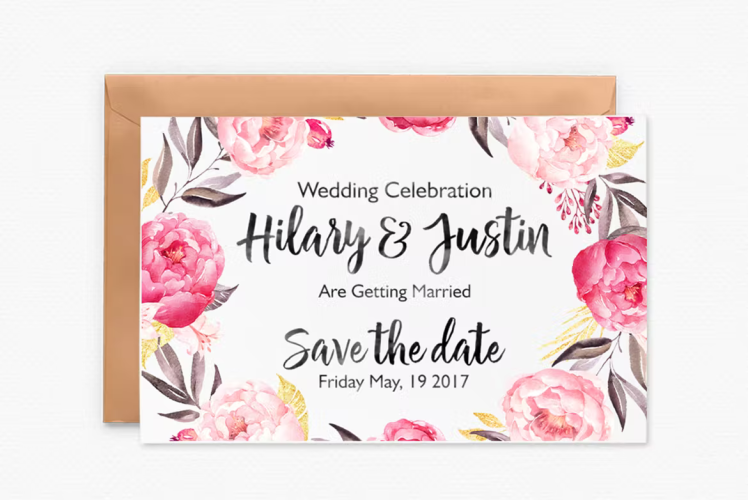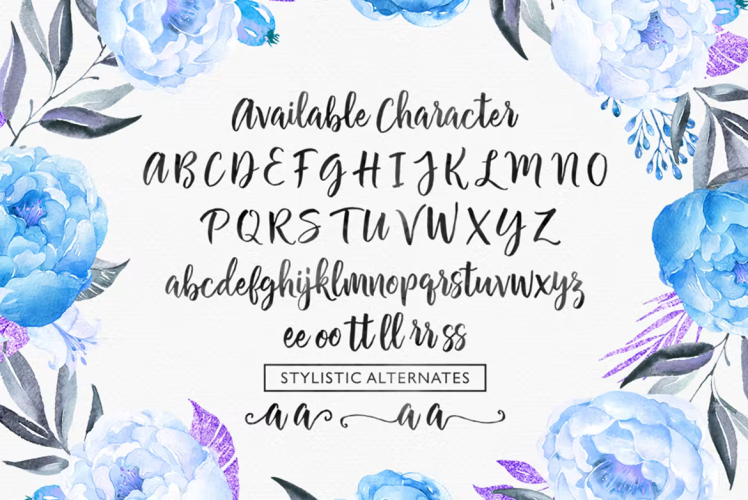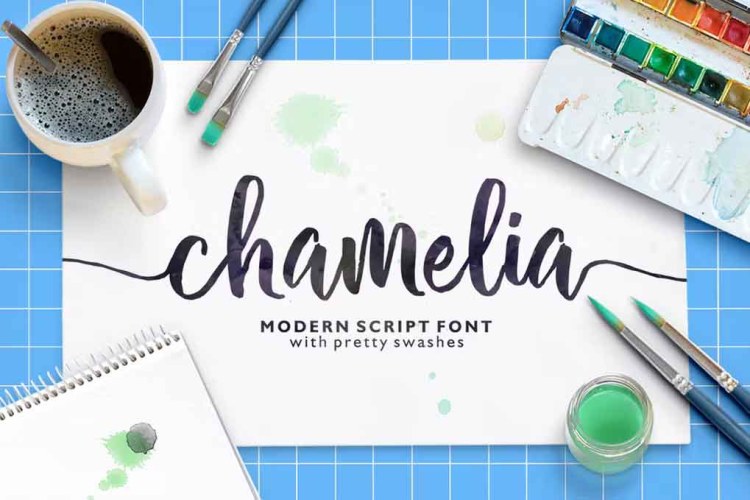
Chamelia Script Font
Chamelia Script is a modern script calligraphy, dynamic and pretty with swashes. Can used for various purposes. such as the title, signature, logo, wedding invitations,…
Chamelia Script is a modern script calligraphy, dynamic and pretty with swashes. Can used for various purposes. such as the title, signature, logo, wedding invitations, letterhead, signage, labels, newsletters, posters, badges, etc.
Where Chamelia Script Font works best
A short phrase in Chamelia Script Font carries warmth that a typeset sans cannot fake; keep the rest of the card plain.
Chalkboard-style headings in Chamelia Script Font make a menu feel hand-made. Keep the dish descriptions in a simple face so prices stay readable.
One line of Chamelia Script Font over a photo is enough; the script carries the tone and the caption does the work.
What kind of work does Chamelia Script Font suit?
It sits in the Script And Handwritten group and reads as branding, calligraphy, modern, script. That makes it a candidate wherever those qualities help: headings, packaging, social graphics and brand work. Set it at the size you plan to use before deciding.